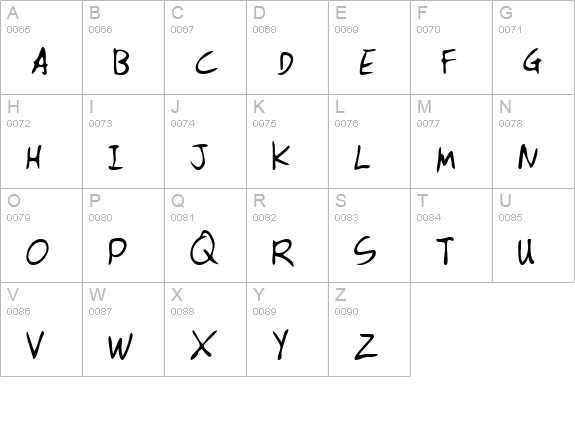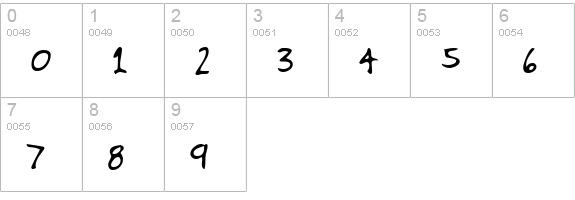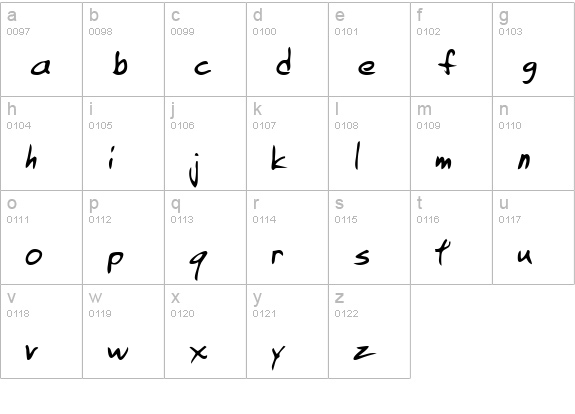
IrvingsHand Regular Font Details
IrvingsHand Regular is the standard, neutral variant in the IrvingsHand typeface family \xE2\x80\x94 well suited to general body text, paragraphs, and standard typographic work.
IrvingsHand Regular font is a charming and versatile typeface that brings a touch of handcrafted elegance to any design project. With its unique hand-drawn style, this font adds a personal and artistic flair to your creations. Whether you're designing invitations, greeting cards, logos, or any other creative endeavor, IrvingsHand Regular is sure to make a lasting impression. One of the best things about IrvingsHand Regular font is that it is completely free! Yes, you heard that right. You can freely download this font at FontsMarket.com, making it accessible to designers and enthusiasts alike. This generous offer allows you to incorporate IrvingsHand Regular into your designs without any cost, making it an invaluable resource. The carefully crafted characters of IrvingsHand Regular font showcase the intricacies of hand-drawn lettering. Each letter is meticulously designed to maintain a cohesive and harmonious look, ensuring that your text flows seamlessly across your design. The natural and organic quality of this font adds a human touch to your projects, evoking a sense of warmth and friendliness. IrvingsHand Regular font comes in a variety of weights and styles, enabling you to experiment and find the perfect fit for your design needs. Whether you prefer a bold and impactful display or a subtle and delicate touch, there is a variant of IrvingsHand Regular that will suit your vision perfectly. With its wide range of applications, IrvingsHand Regular font is a must-have for any designer's toolkit. From branding and packaging to digital media and print materials, this font effortlessly adapts to various design contexts, ensuring that your message is communicated with clarity and style. So why wait? Take advantage of the opportunity to download IrvingsHand Regular font for free at FontsMarket.com and unlock the creative possibilities that this beautiful typeface has to offer. Elevate your designs with the charm and elegance of IrvingsHand Regular, and watch as your projects come to life with a touch of handmade sophistication.